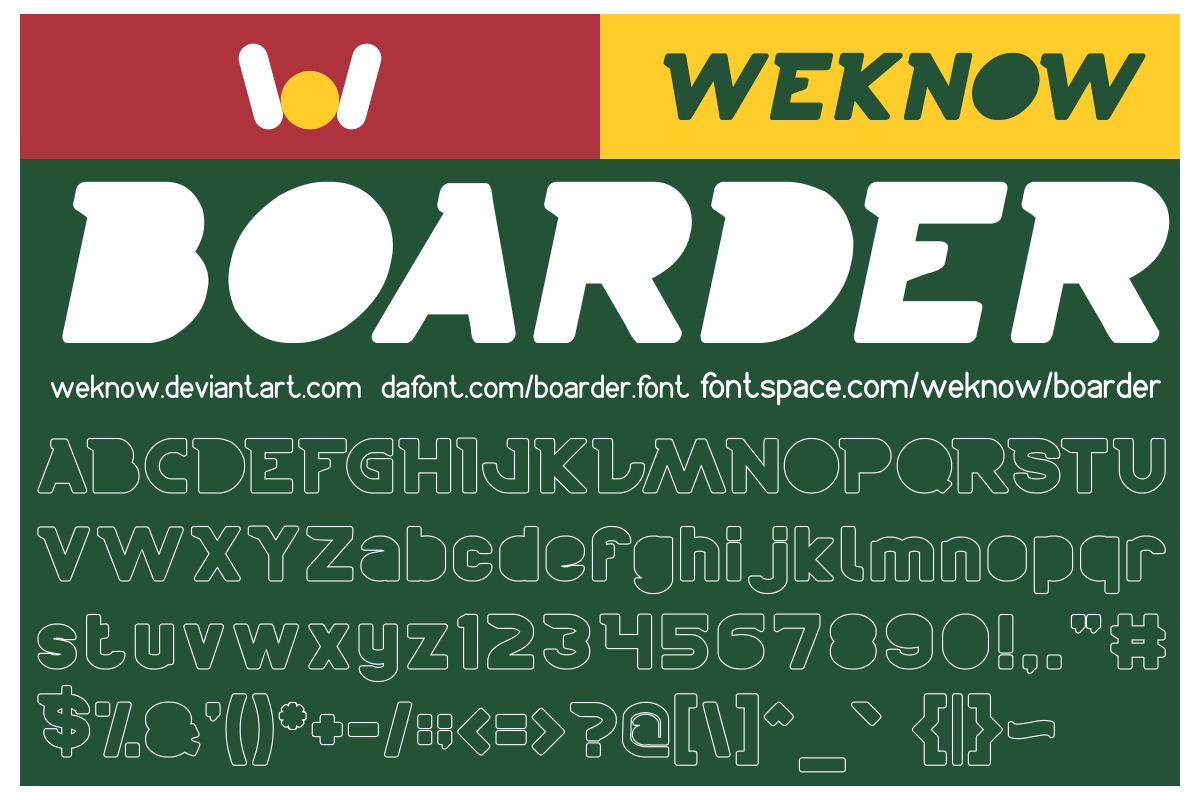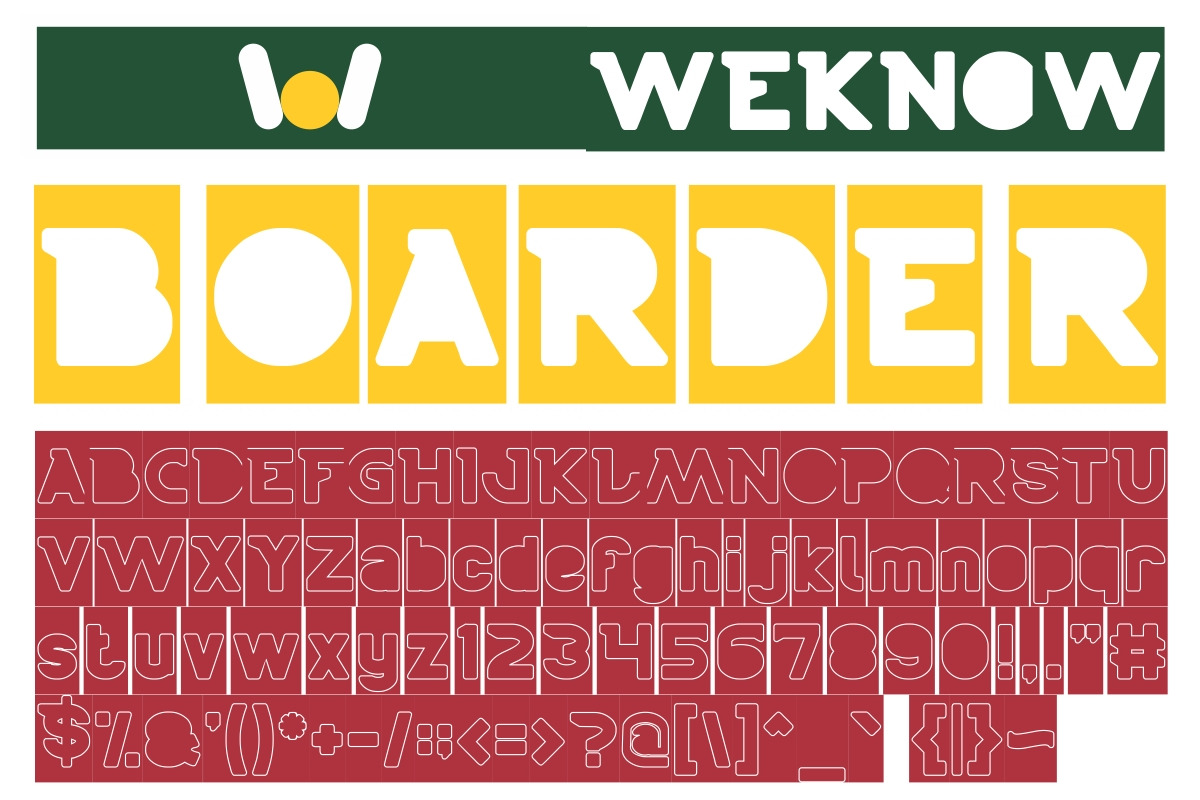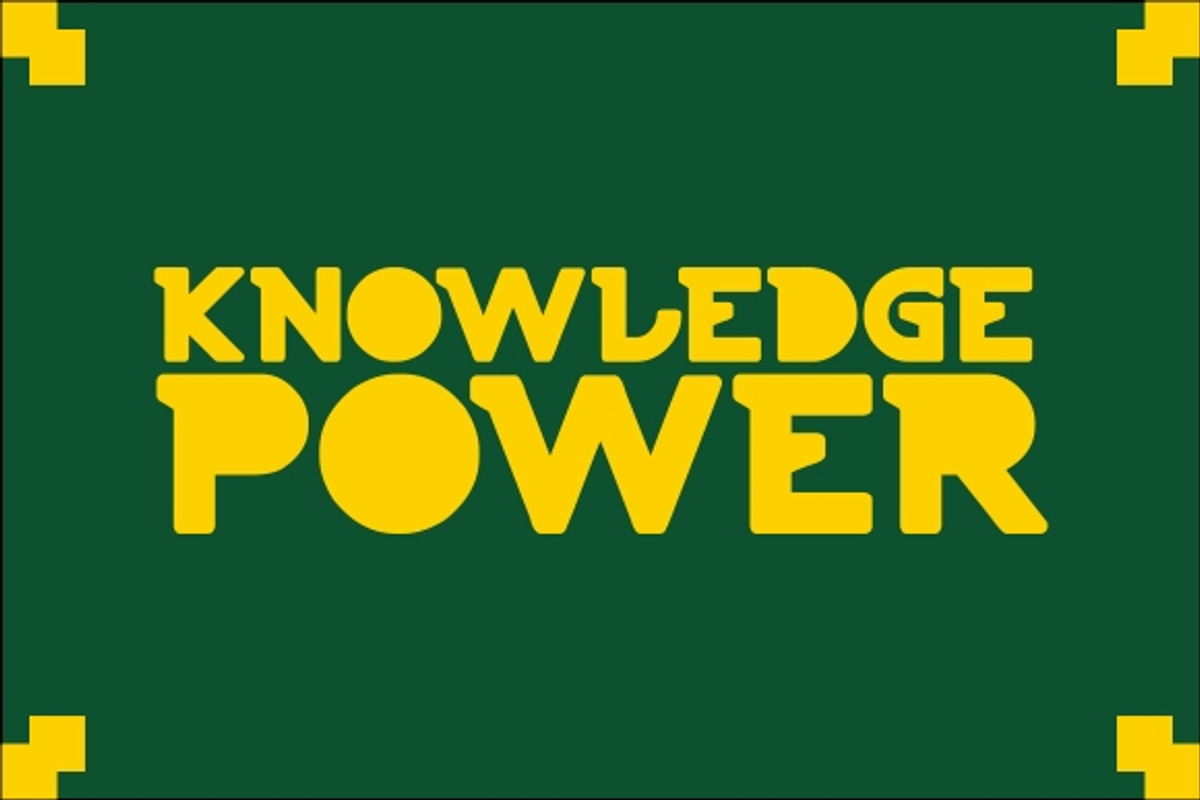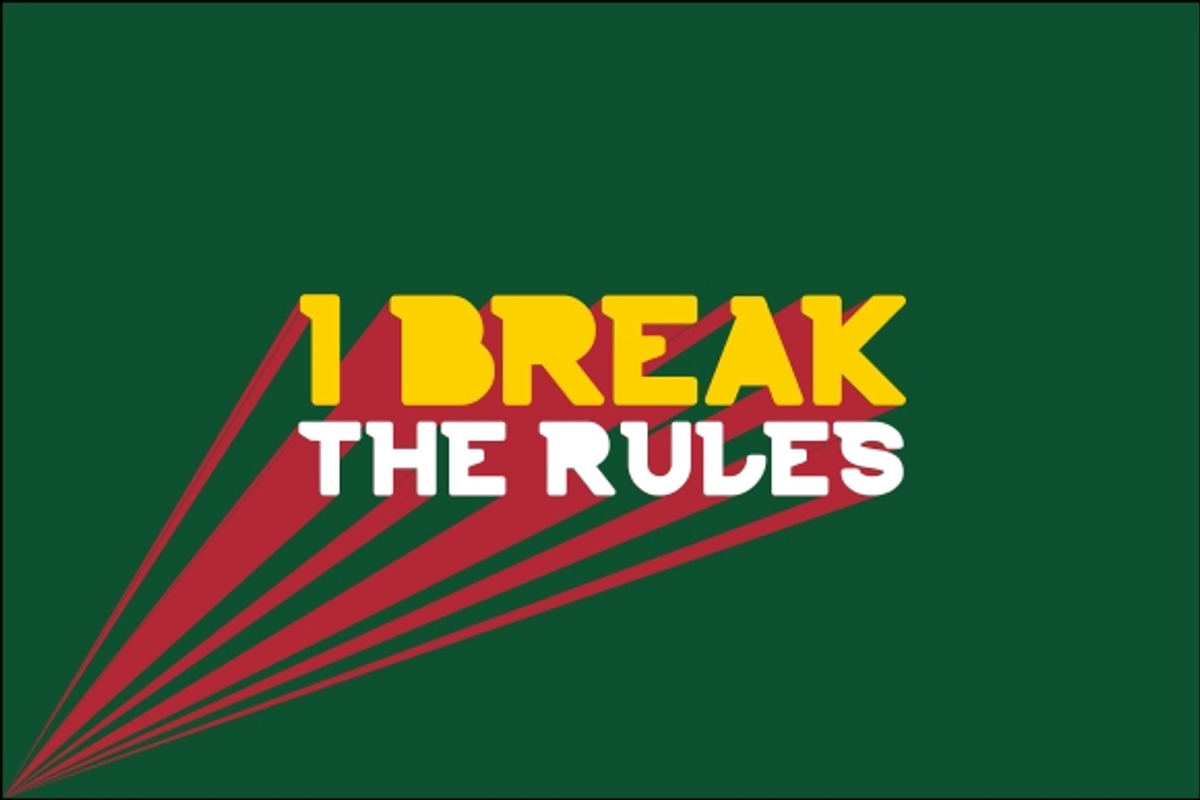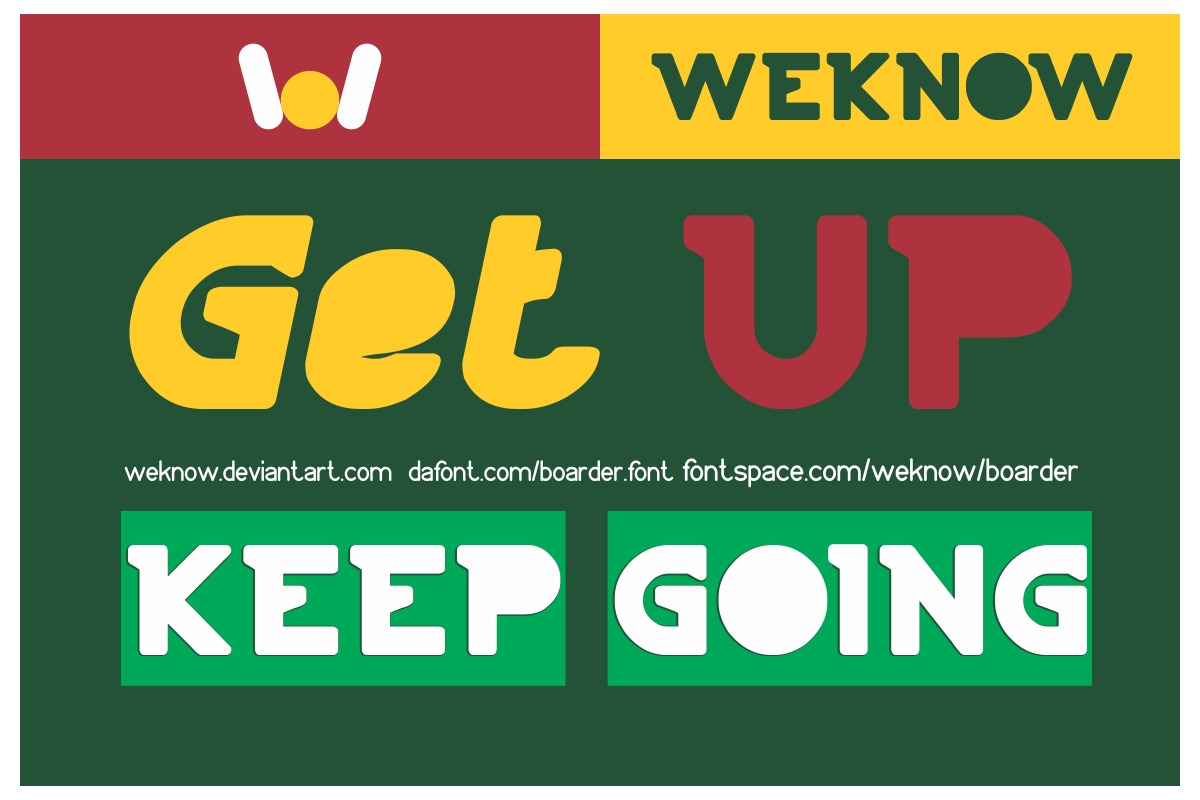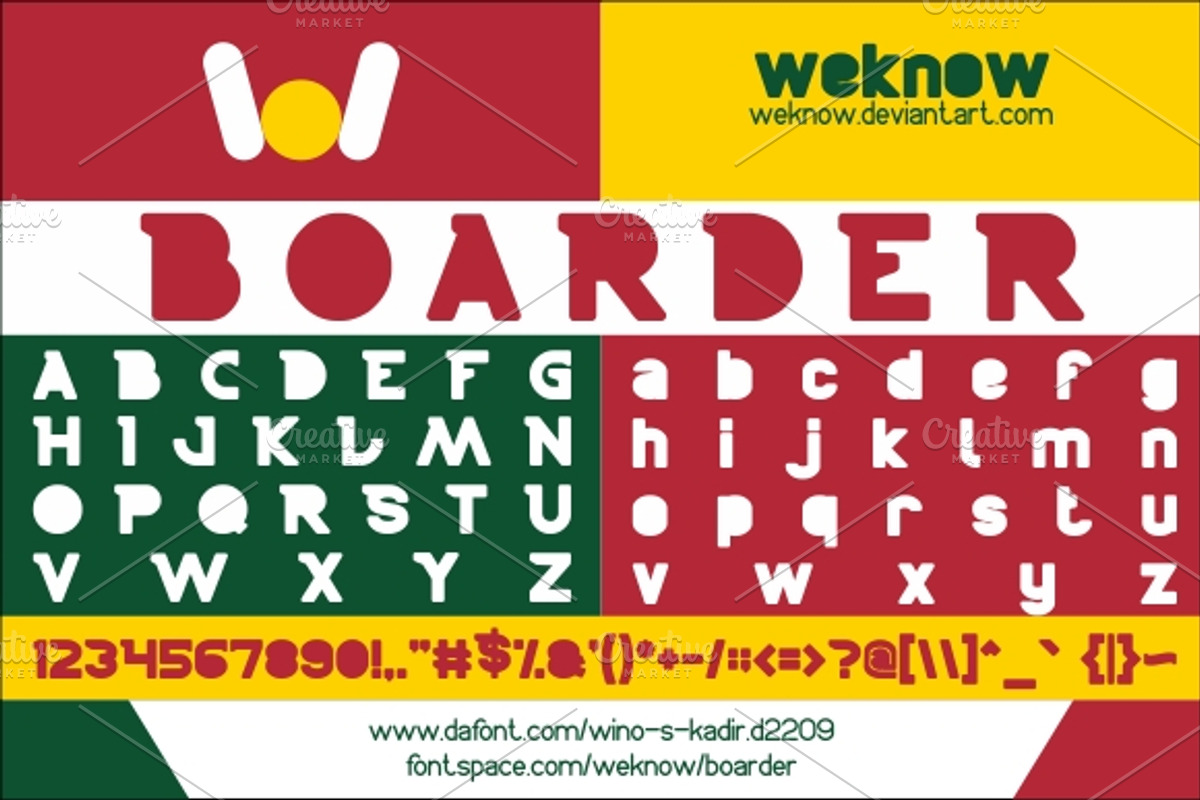
boarder font
boarder font by weknow is a font selected for branding, posters, packaging, typography.
Why boarder font is worth a look
boarder font by weknow fits naturally into Branding, posters, packaging, typography.